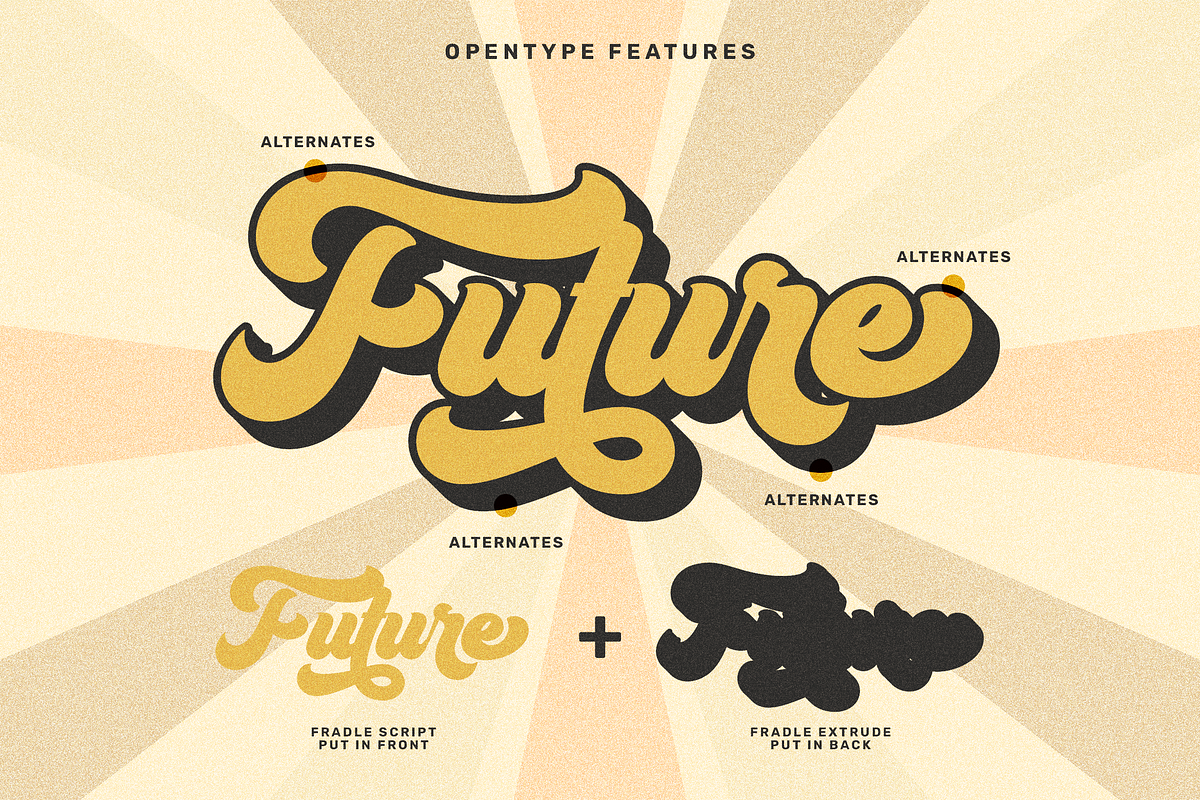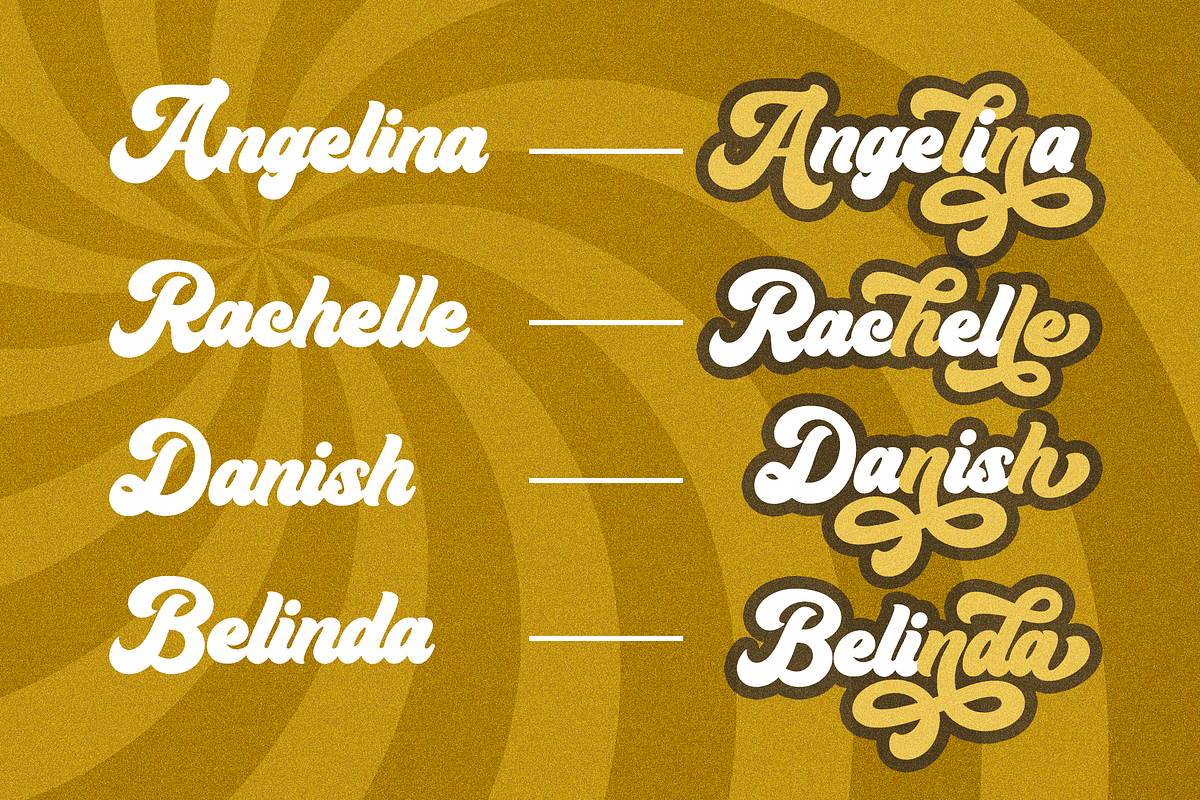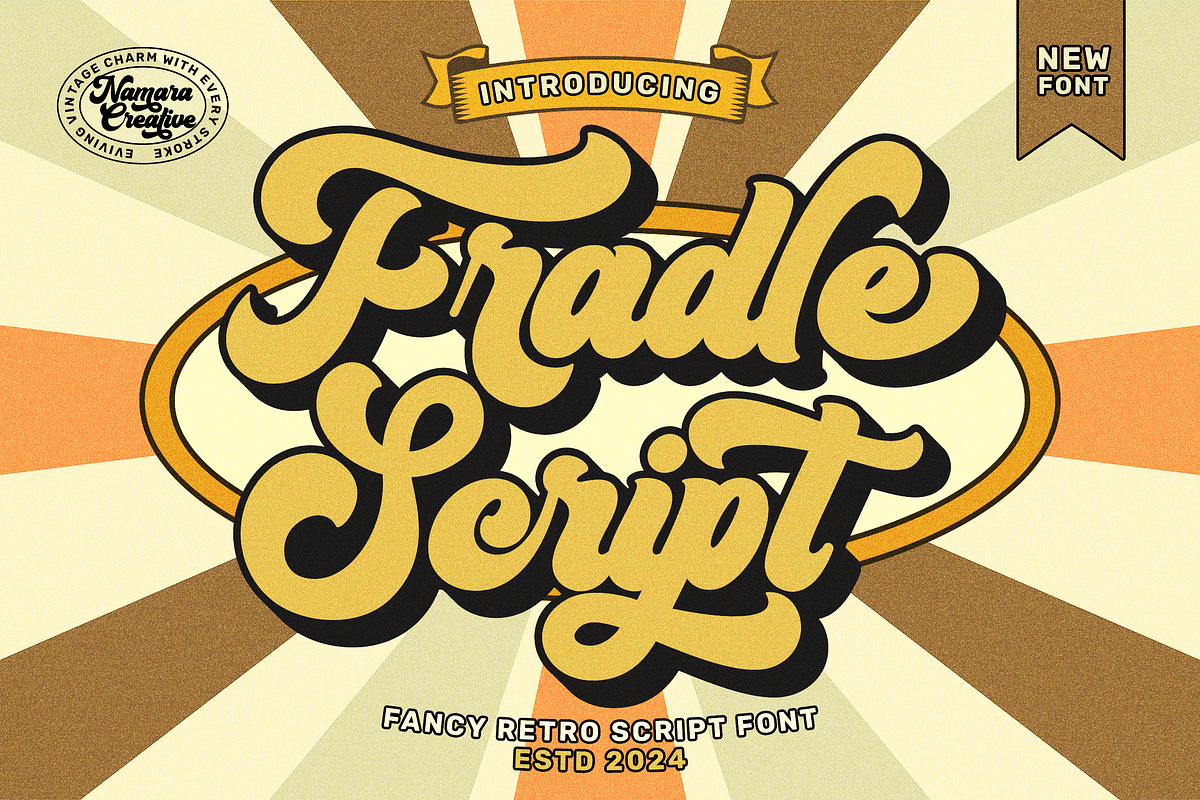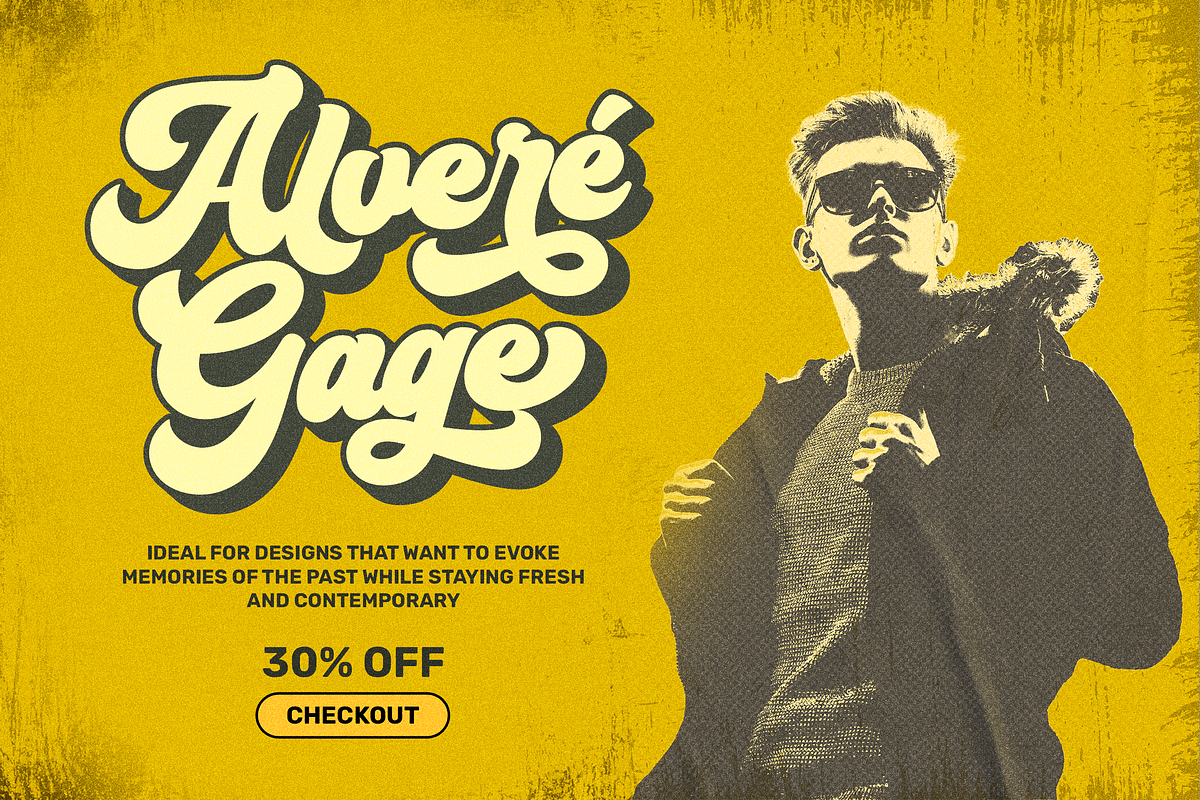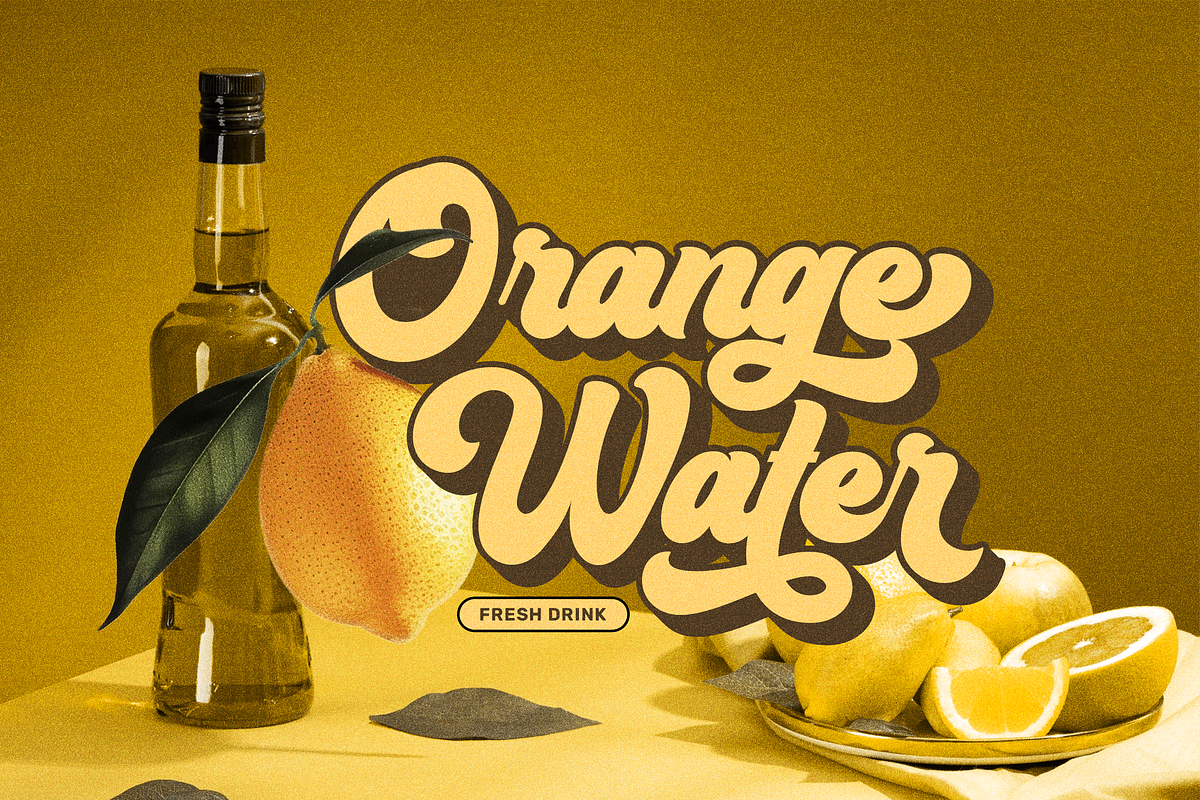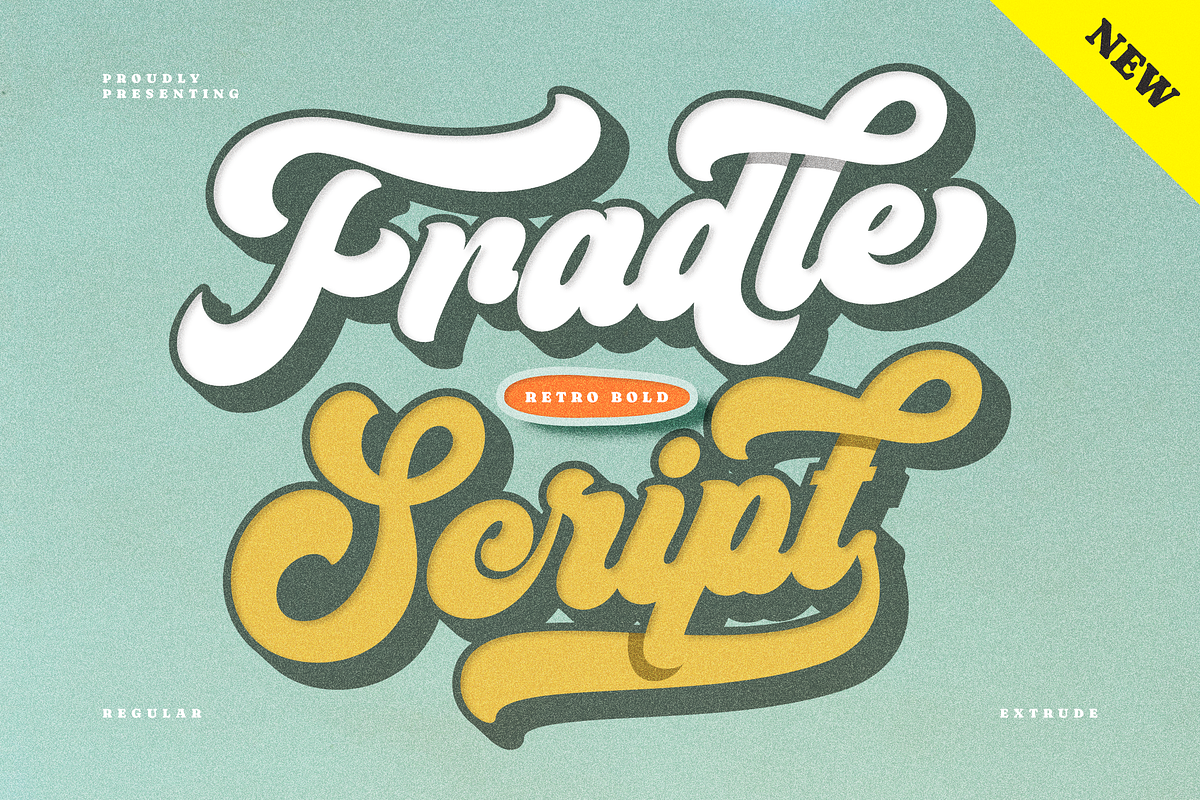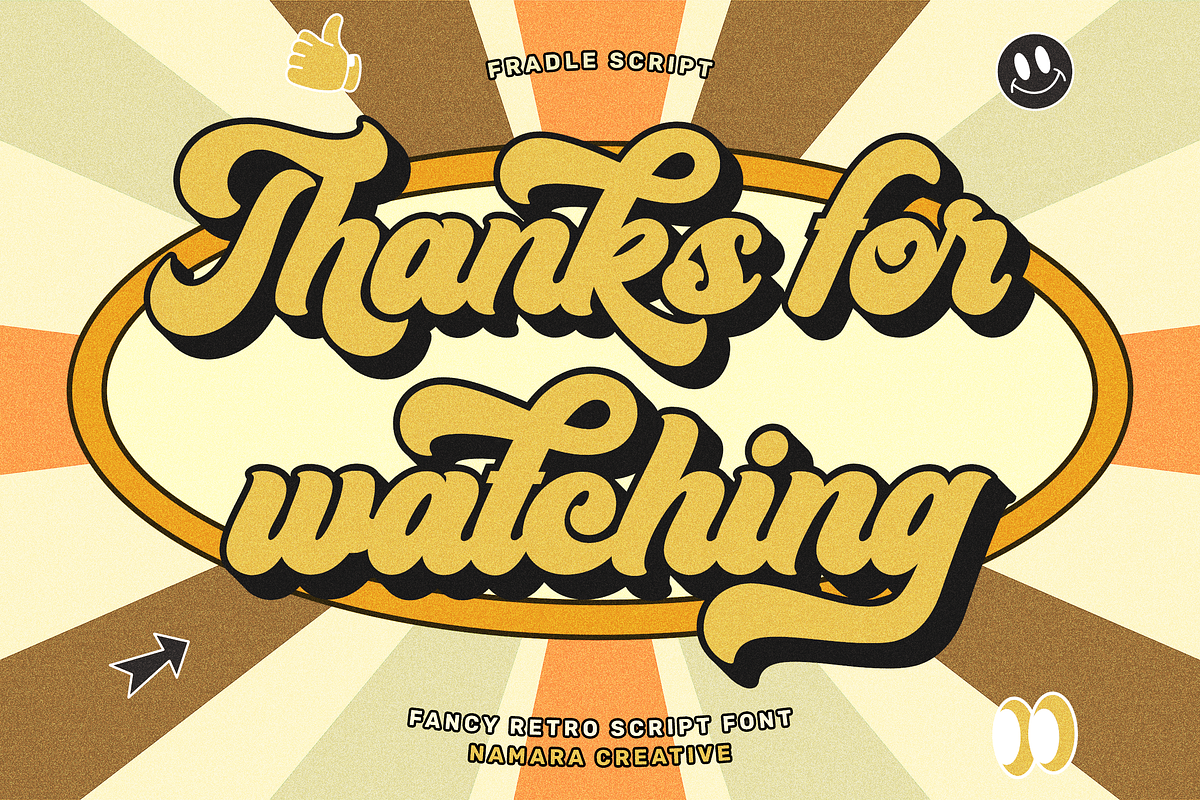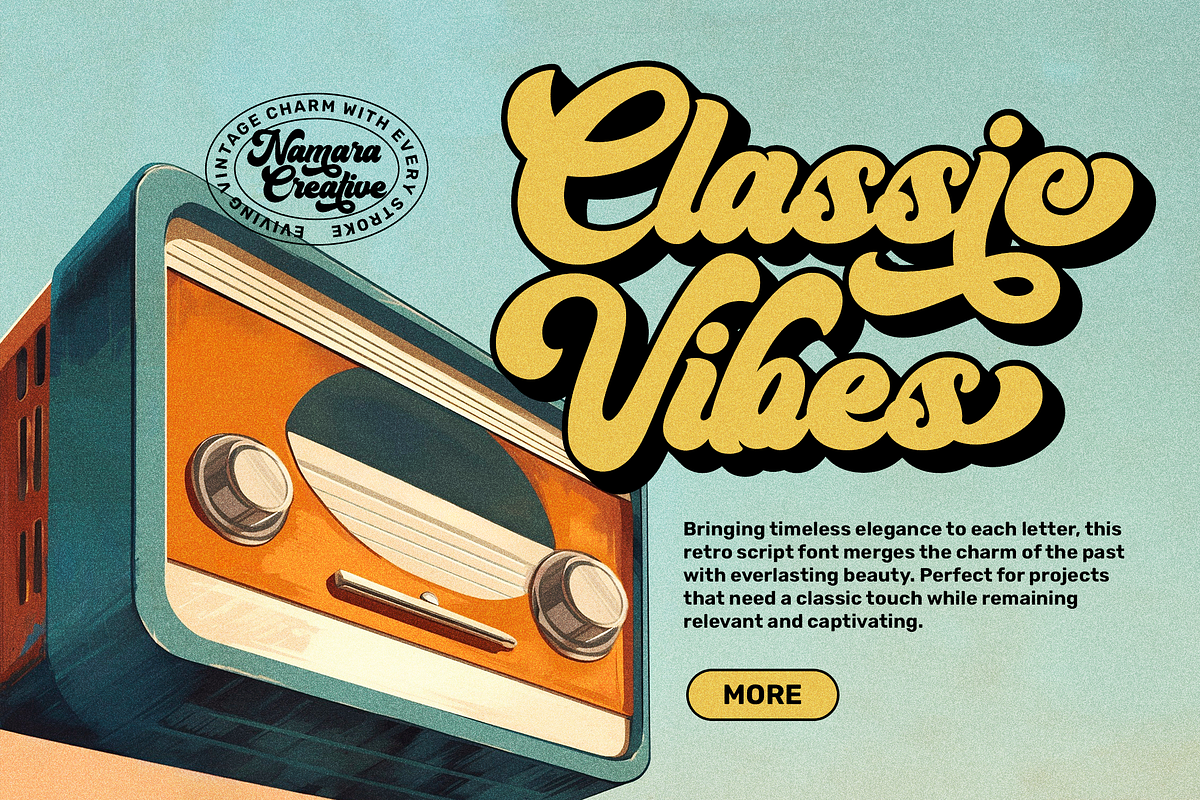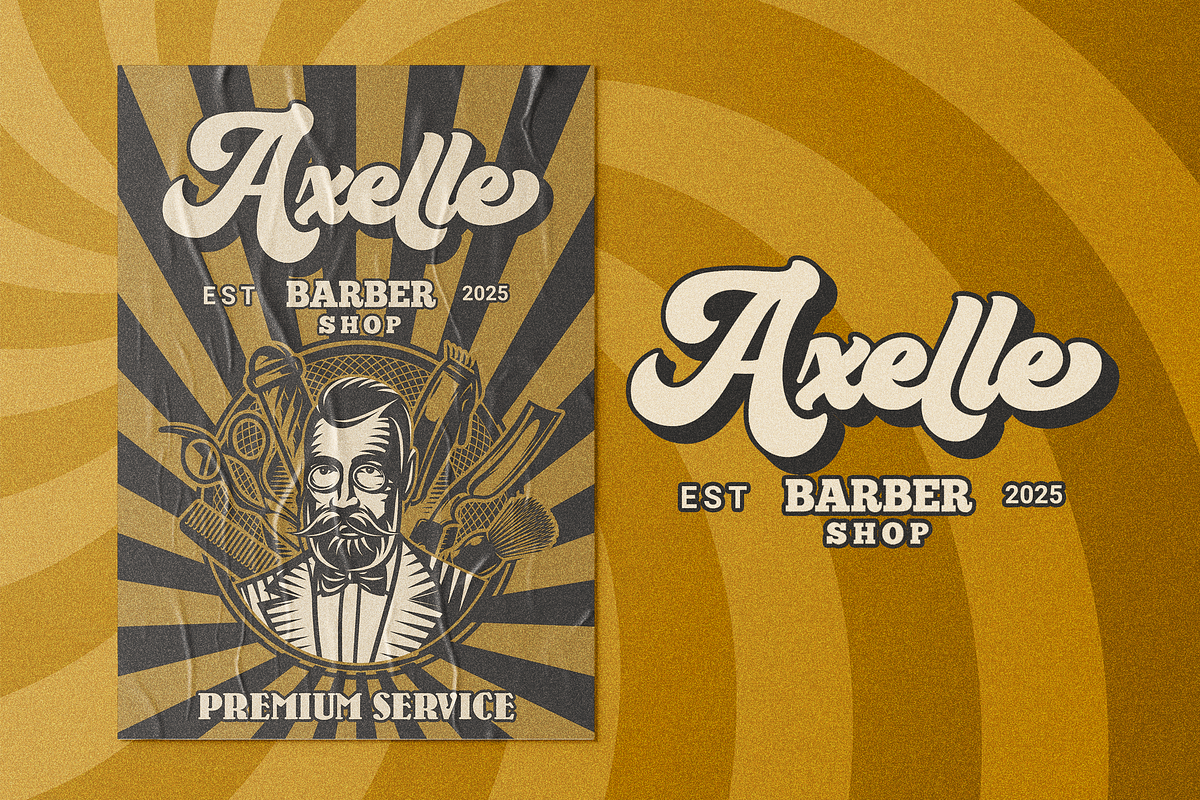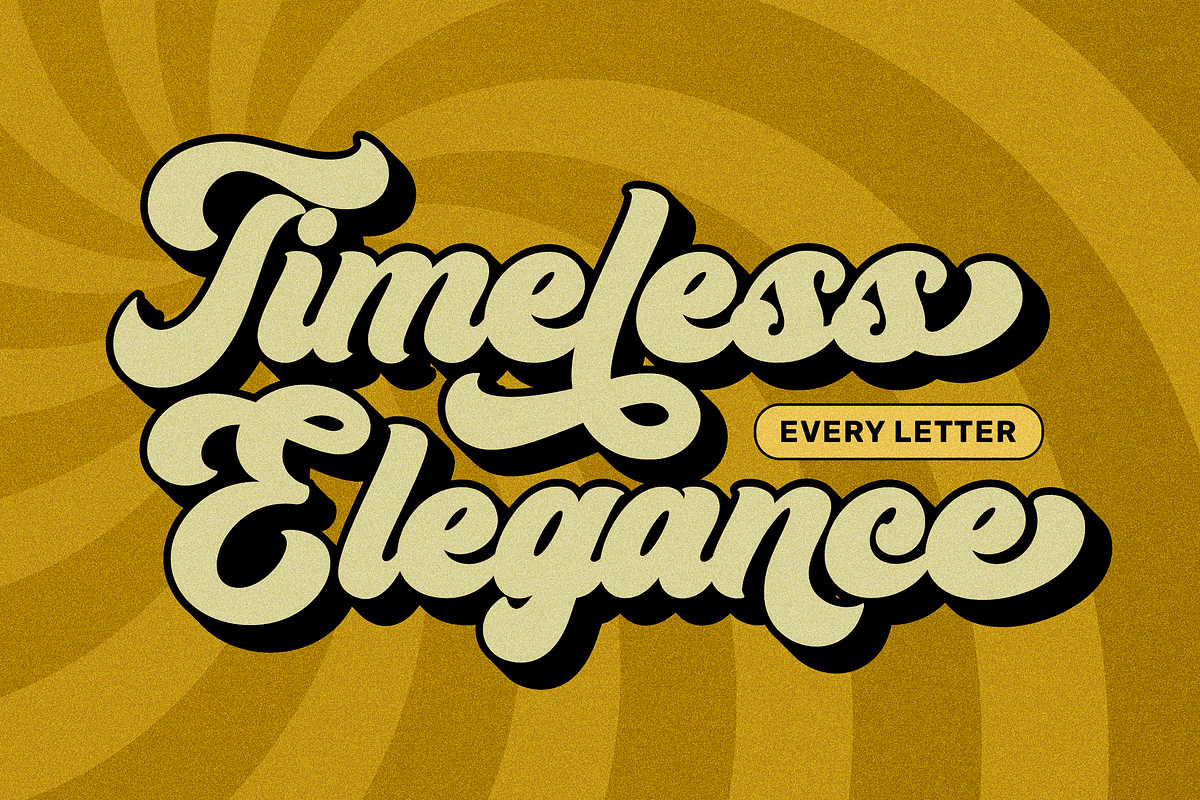
Fradle Script - Retro Bold Fonts
Introducing Fradle Script
A retro bold script font that captures the vintage charm and boldness. It brings a nostalgic appeal that resonates with audiences looking for vintage authenticity and modern allure.
Whether you need it for headlines, logos, packaging, or editorial designs, this font stands out for its boldness and versatility. It’s perfect for projects that require a bold statement with a retro edge and this font will leave a lasting impression.
- Full Set of standard characters and punctuations.
- Alternates, ligatures, swashes and multilingual support.